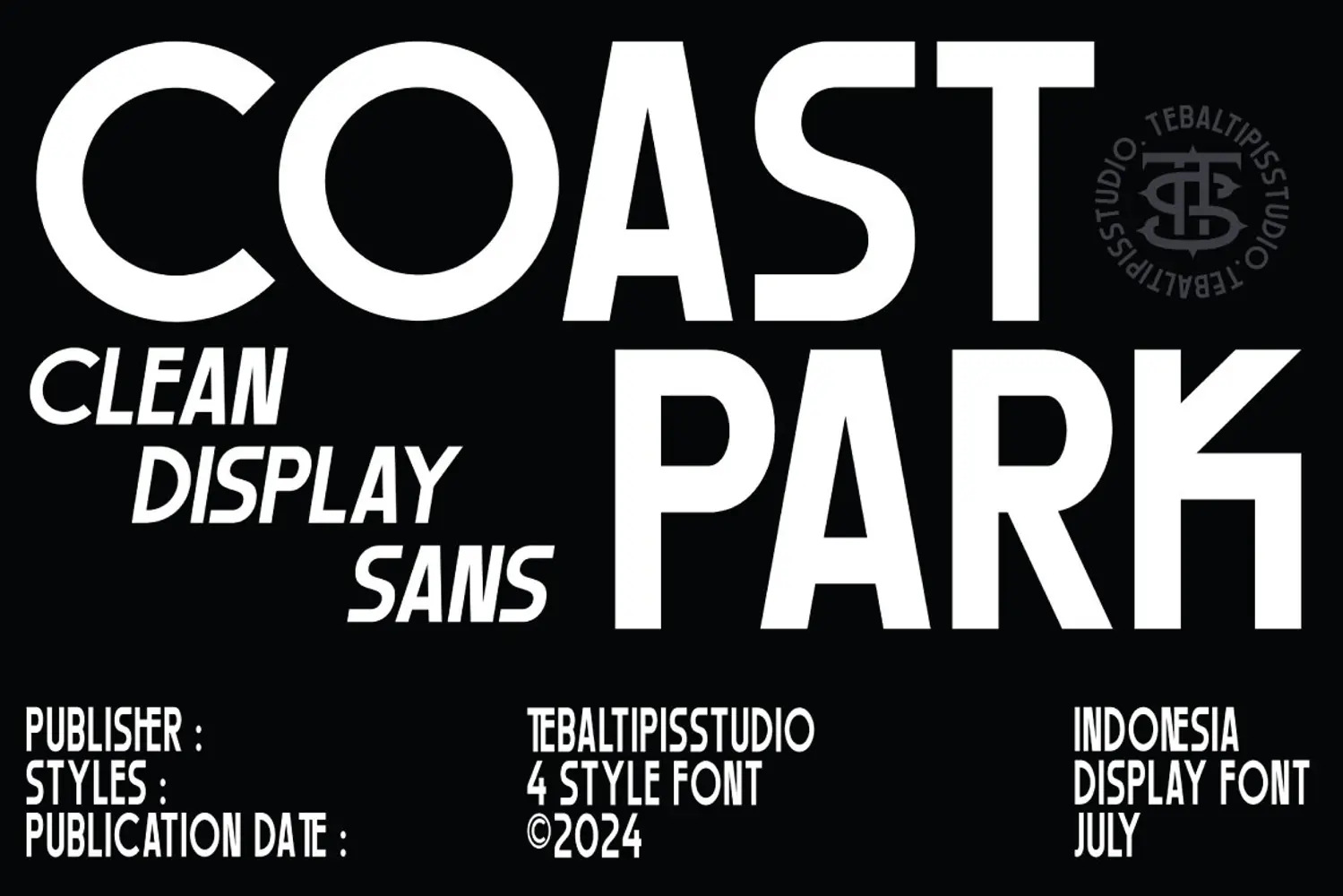
Coast Park 4 Style
Coast Park Condensed Slant
Coast Park Condensed
Coast Park Slant
Coast Park Display
Coast Park is a contemporary sans serif that offers a straightforward interpretation of the English humanist sans, gently blending rigid tones over a warm structure. It’s available in 4 Style and it comes with an Condensed Slant set. This simple and carefully crafted typeface, with traits flirting with geometry, becomes a powerful workhorse. Its versatility makes it ideal for both paragraphs and bigger typesettings, a great choice for branding, signage, editorial, and more.
Coast Park features: